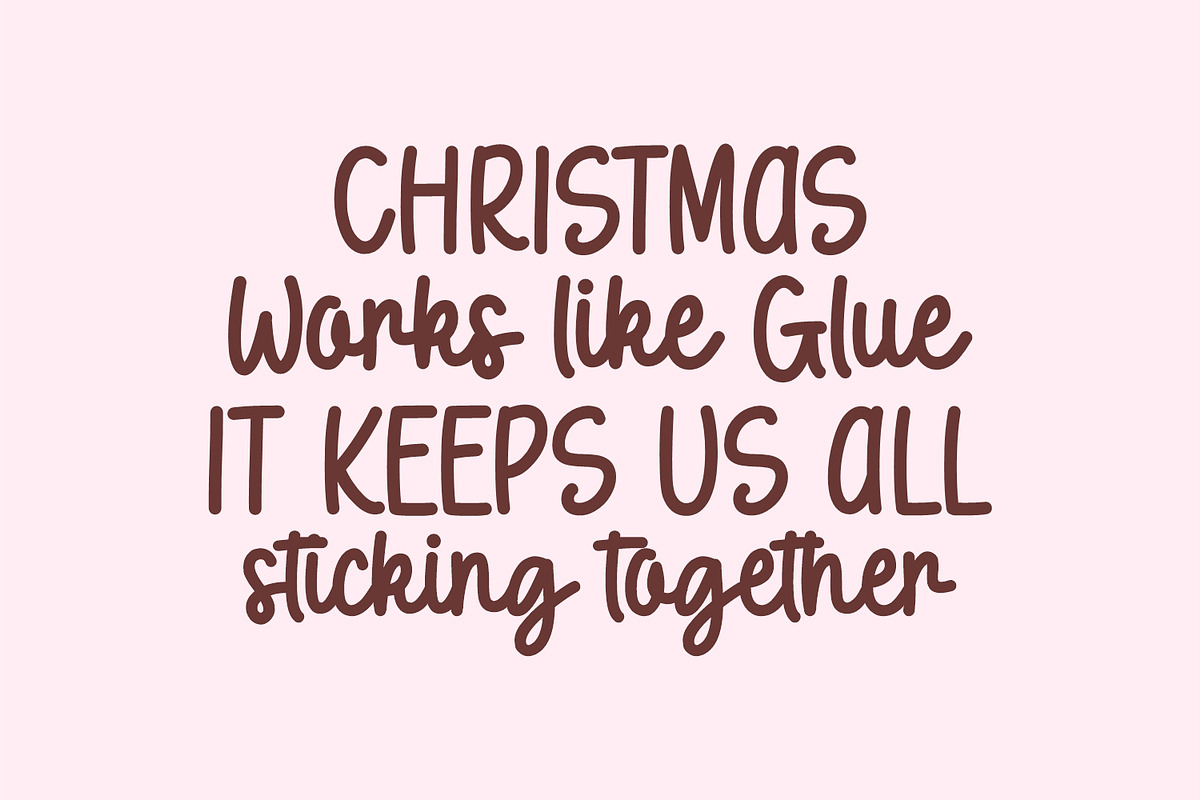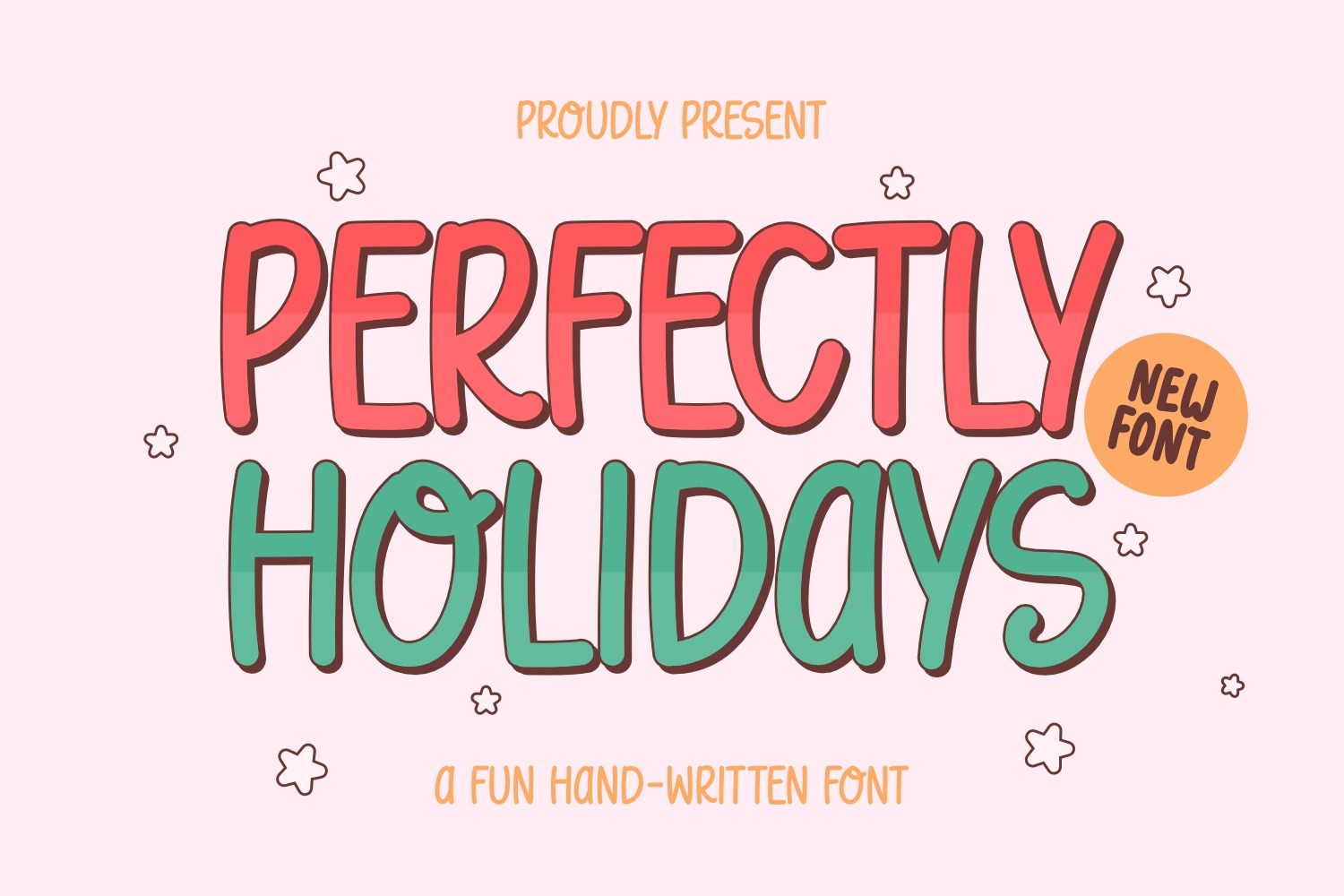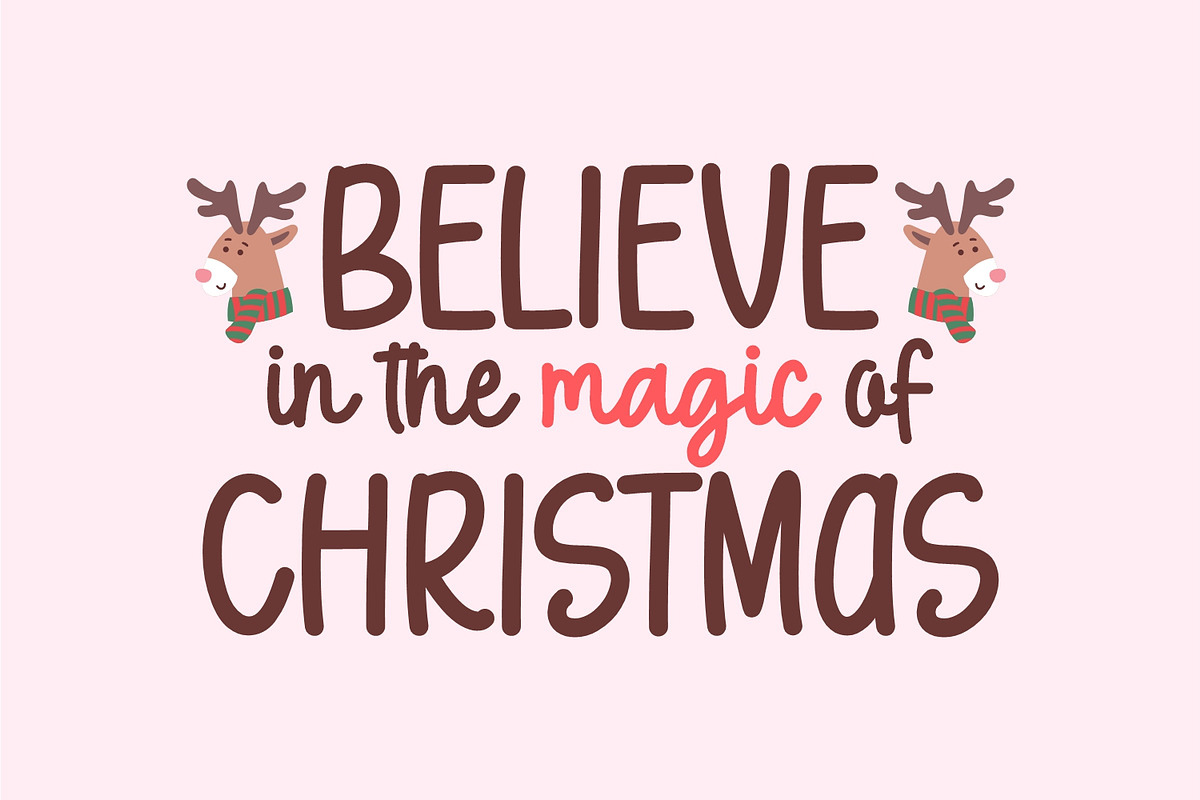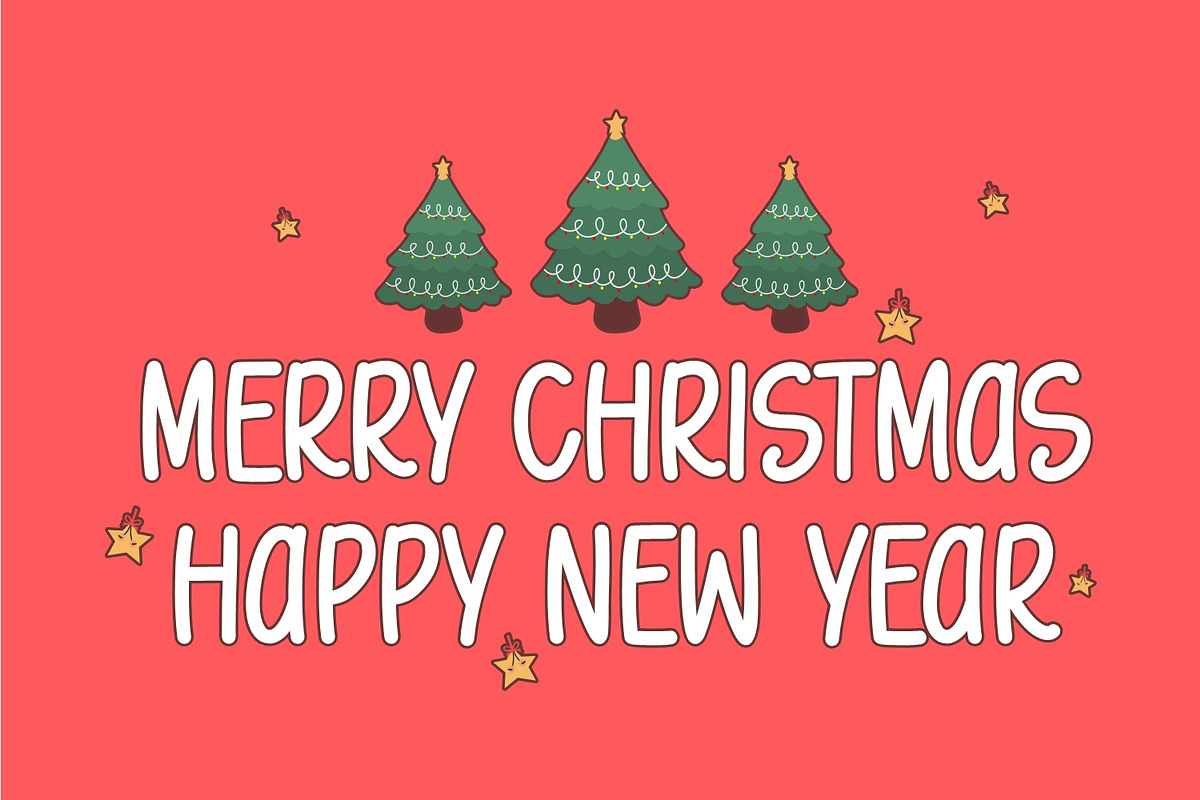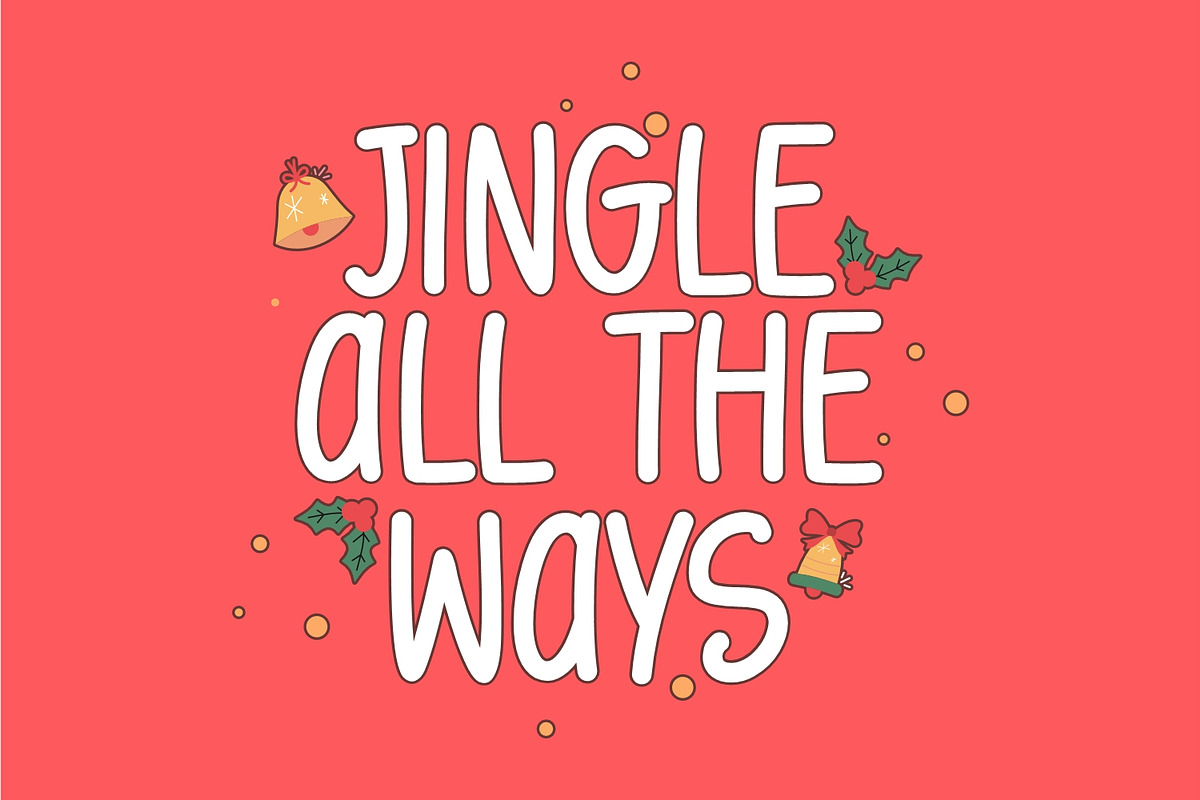
Perfectly Holidays - Christmas Font
Perfectly Holidays is a playful handwritten font that adds a touch of joy to your projects. With its fun and friendly style, it’s perfect for creating festive designs, cards, or any project that needs a cheerful vibe. Let Perfectly Holidays infuse your creations with a whimsical spirit, making every occasion feel extra special.